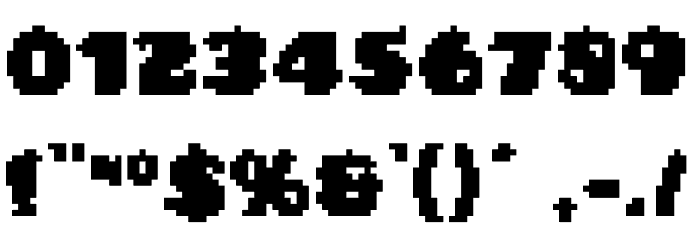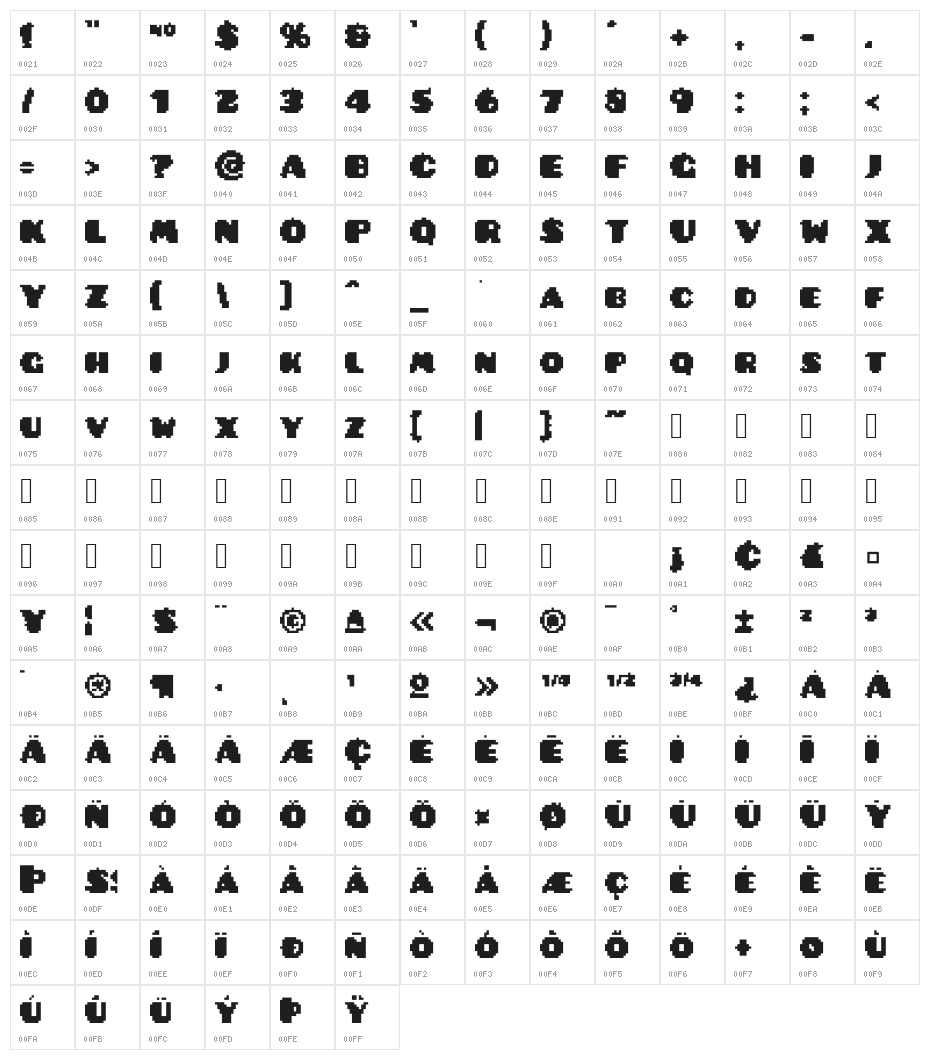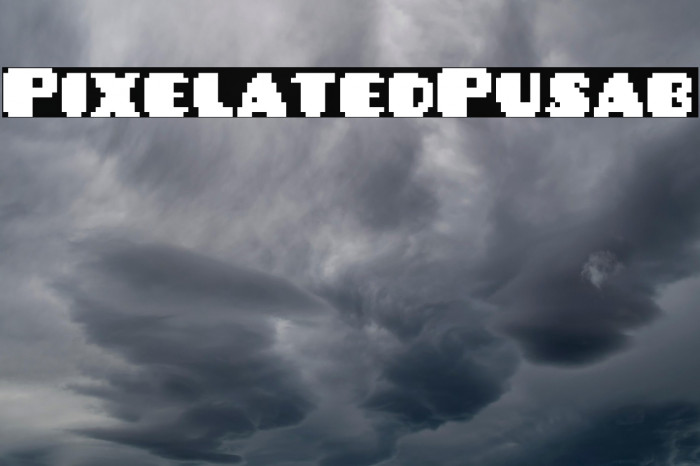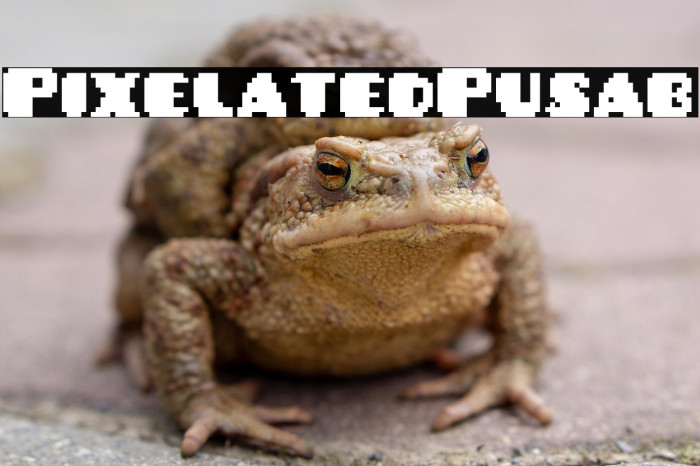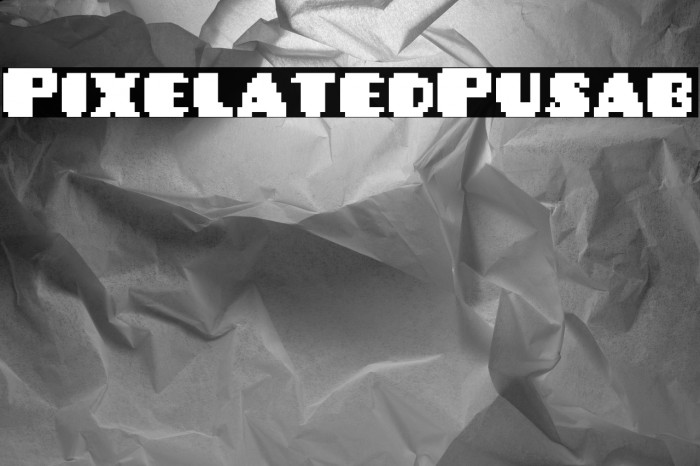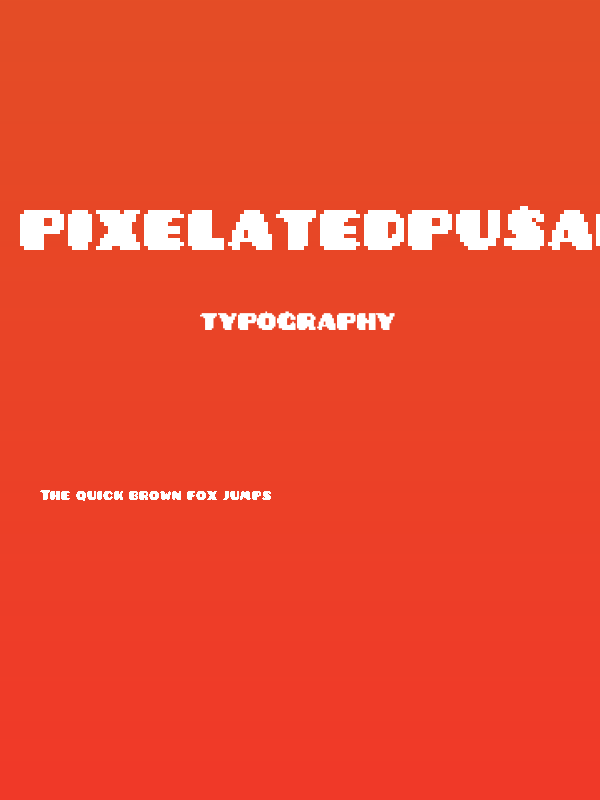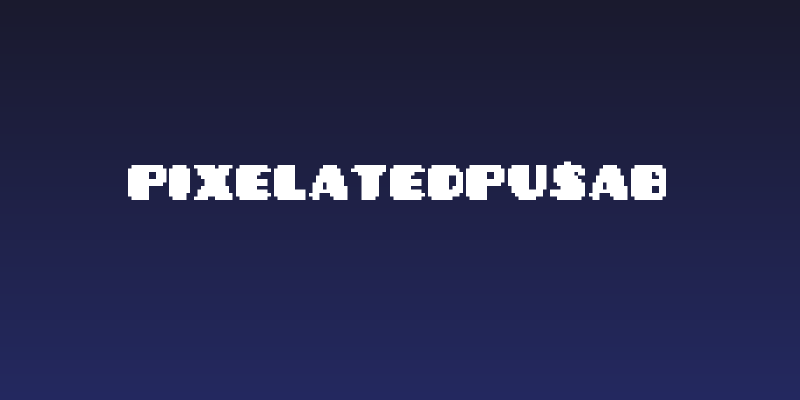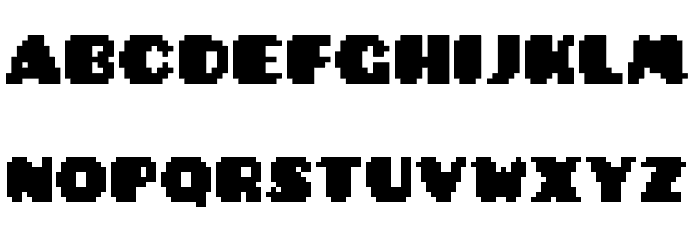
PixelatedPusab Font
PixelatedPusab Description
This font features a bold, pixelated design reminiscent of early digital and video game aesthetics. Each character is composed of blocky, square shapes that give it a distinctly retro and digital feel. The uppercase and lowercase letters maintain a consistent height, contributing to a uniform appearance. Numbers and special characters follow the same pixelated style, ensuring a cohesive look across all glyphs. The font's chunky and geometric structure makes it highly legible at larger sizes, ideal for capturing attention.